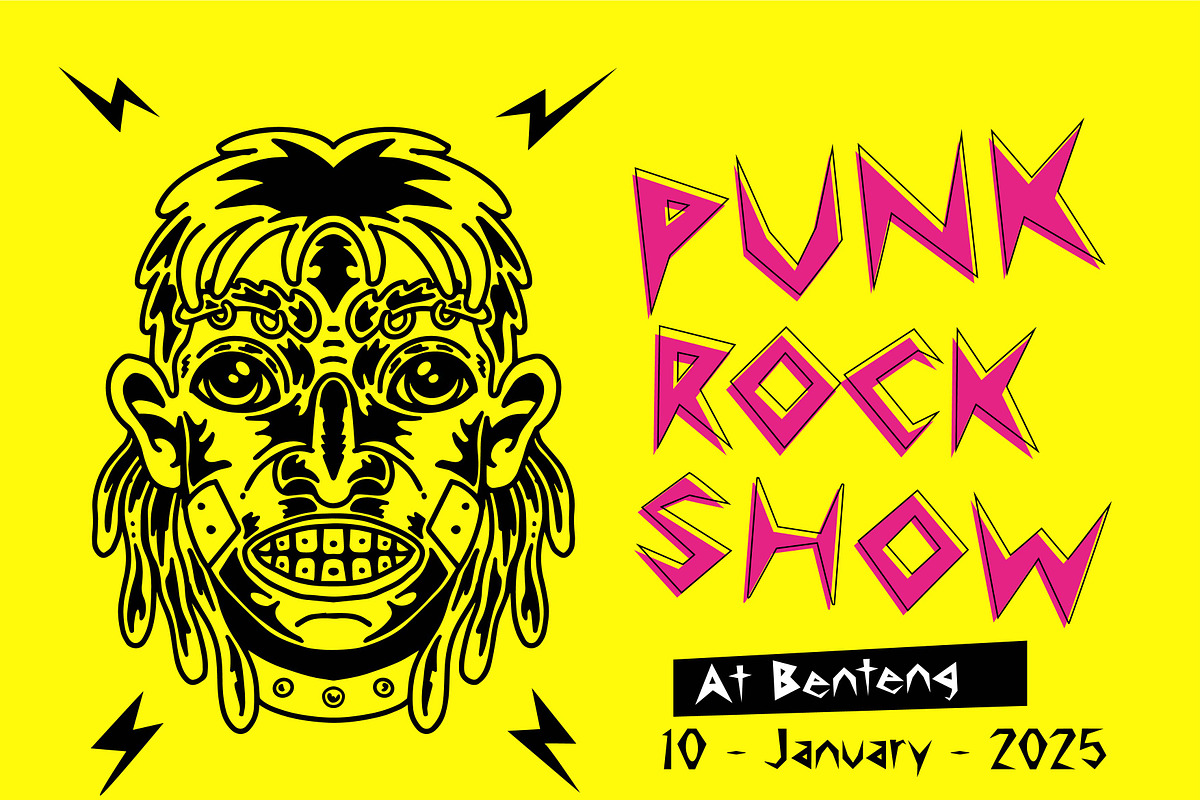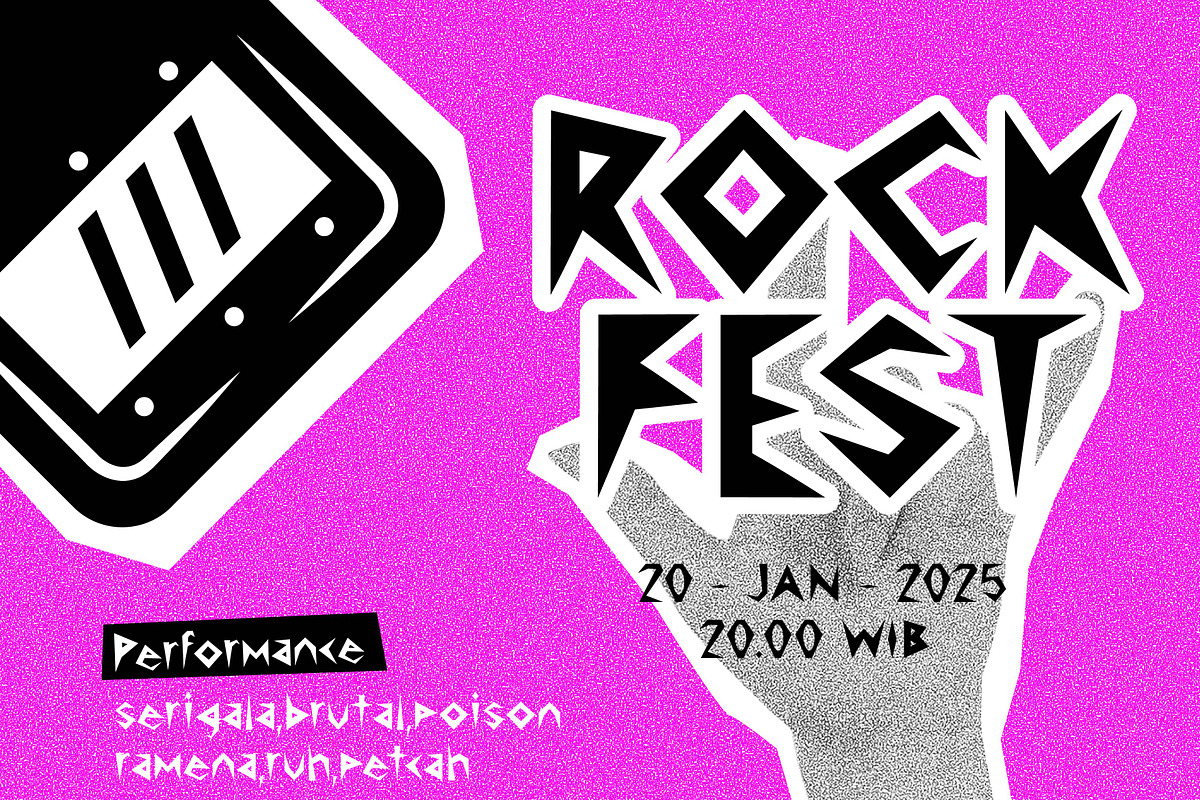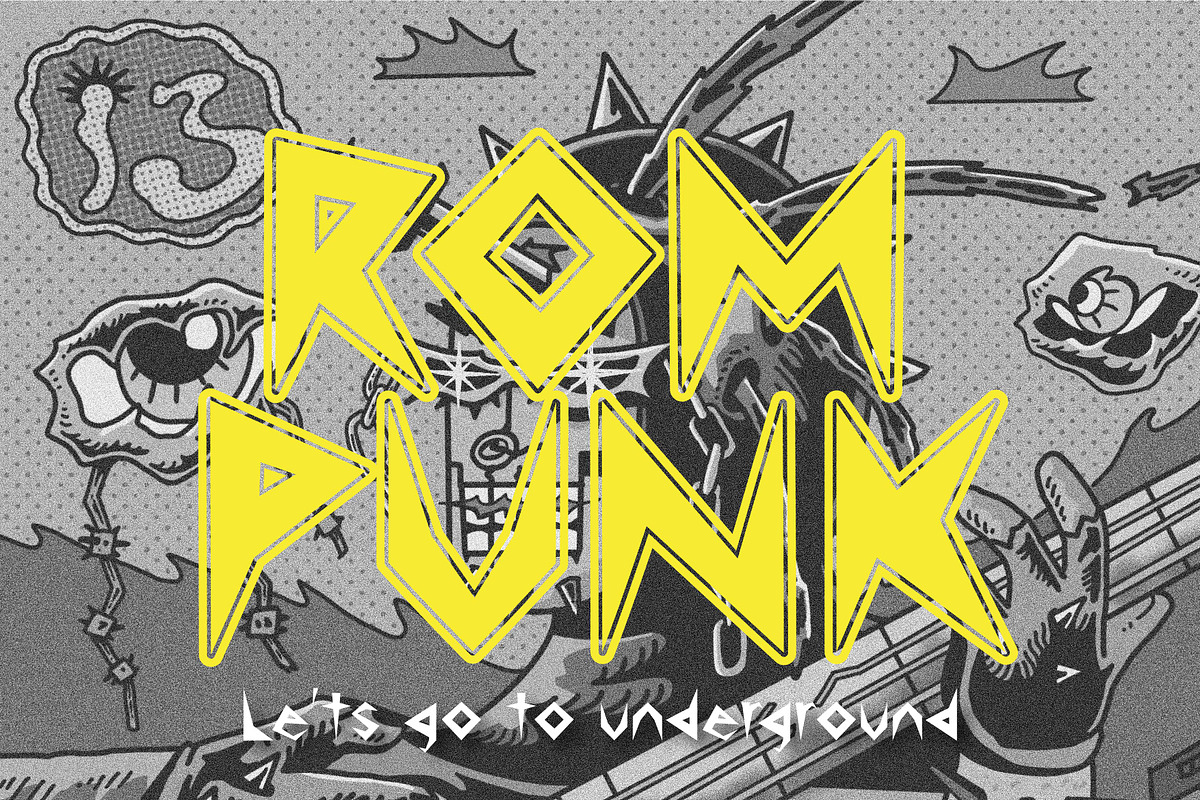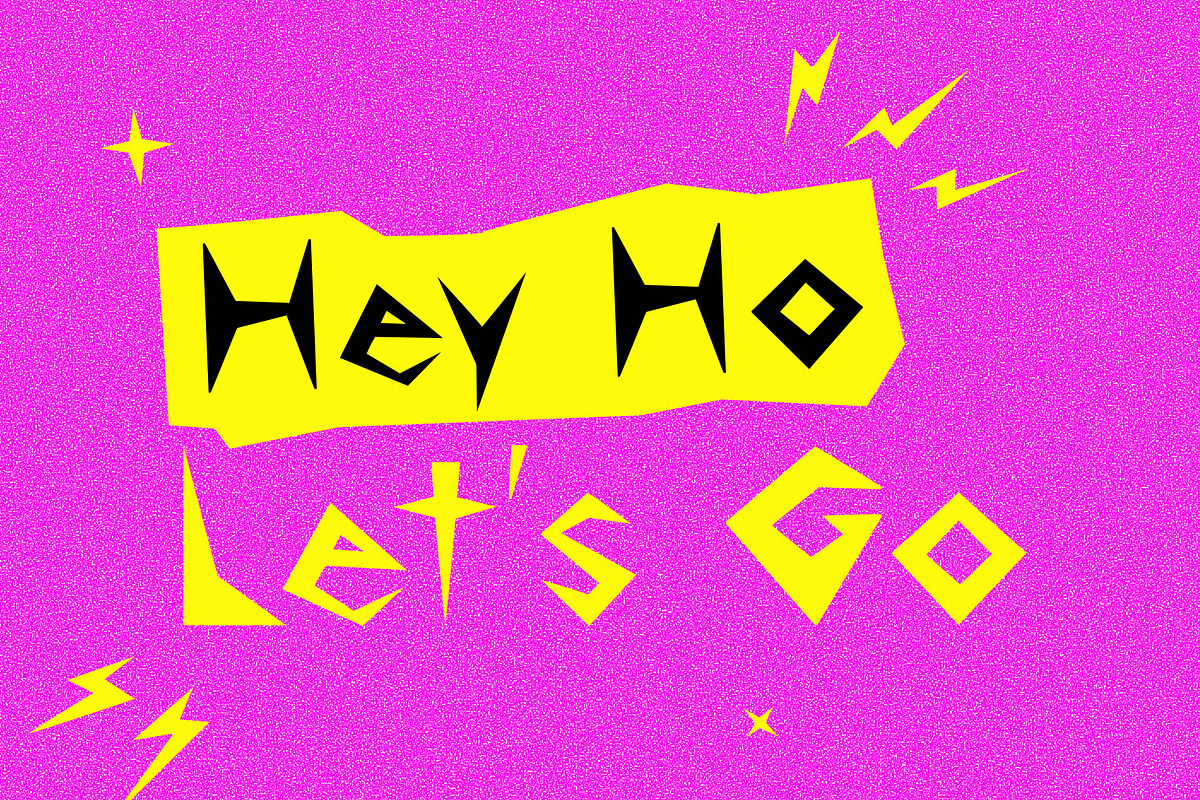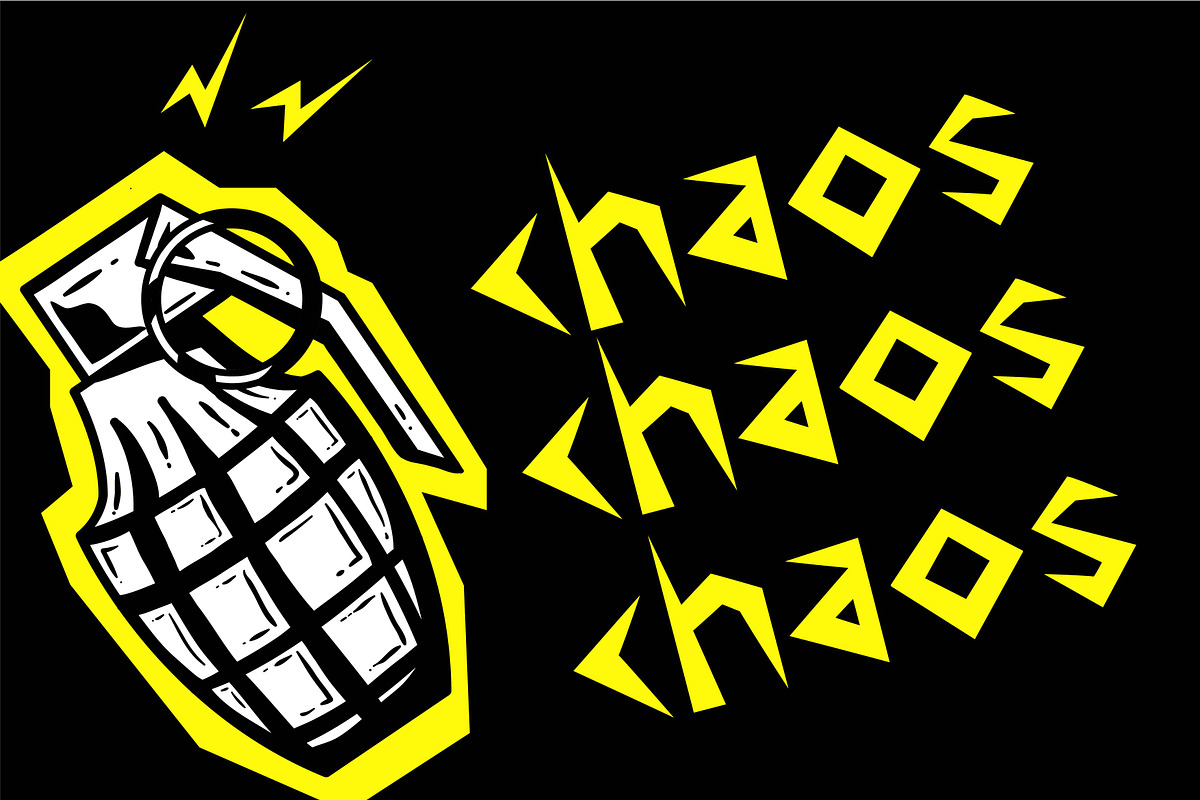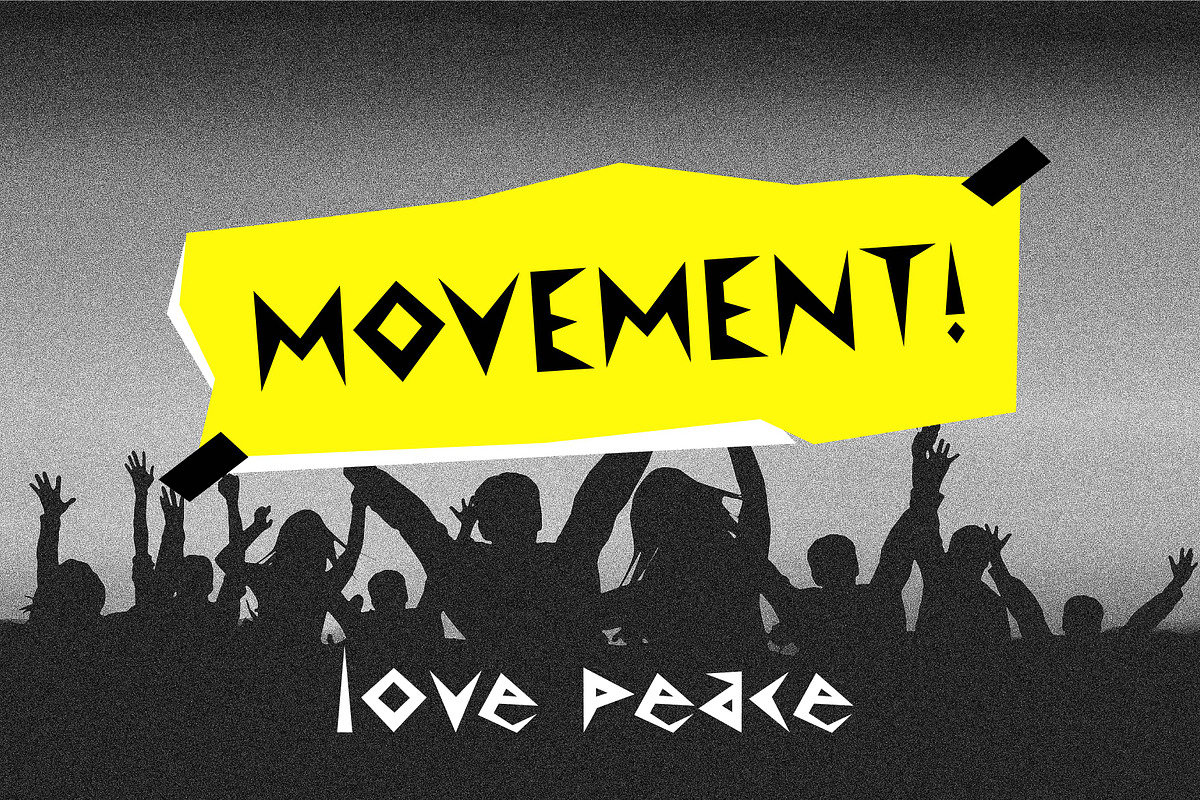
ROMPUNK FONT
Rompunk is a font inspired by the underground music scene, so it is suitable for the design of posters, t-shirts, campaigns and merchandise
Have fun with rompunk fonts to make your branding even more punk